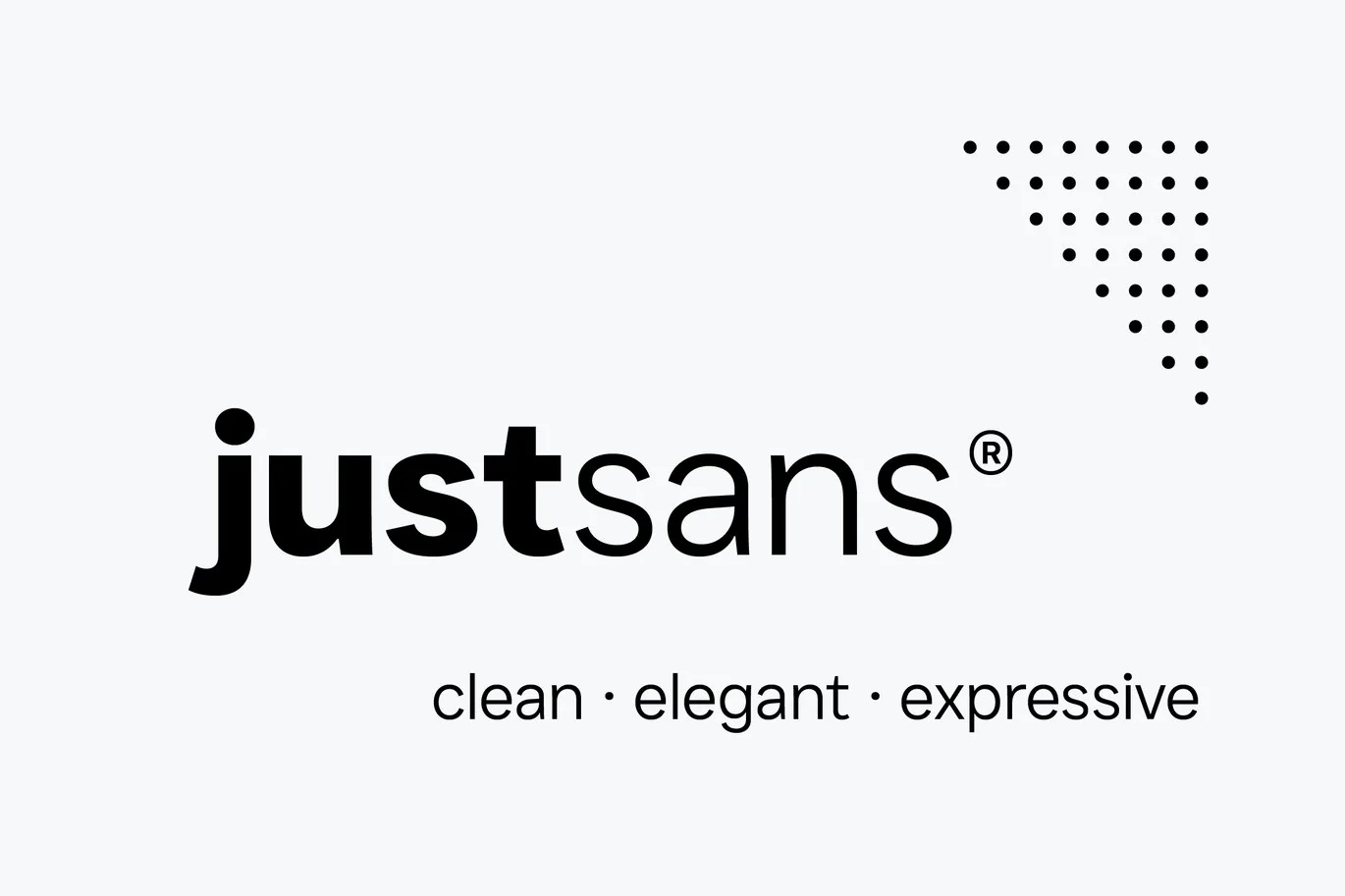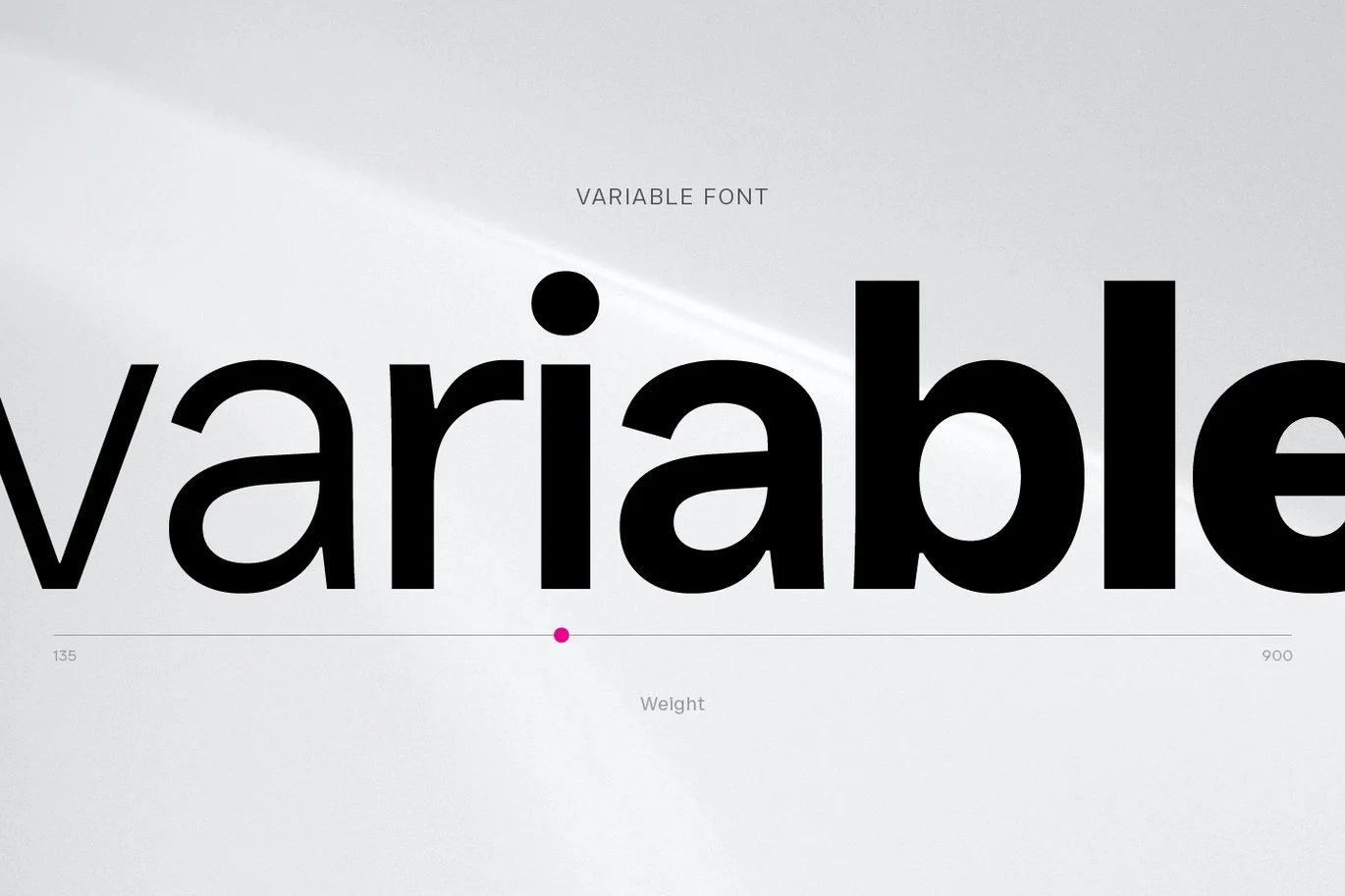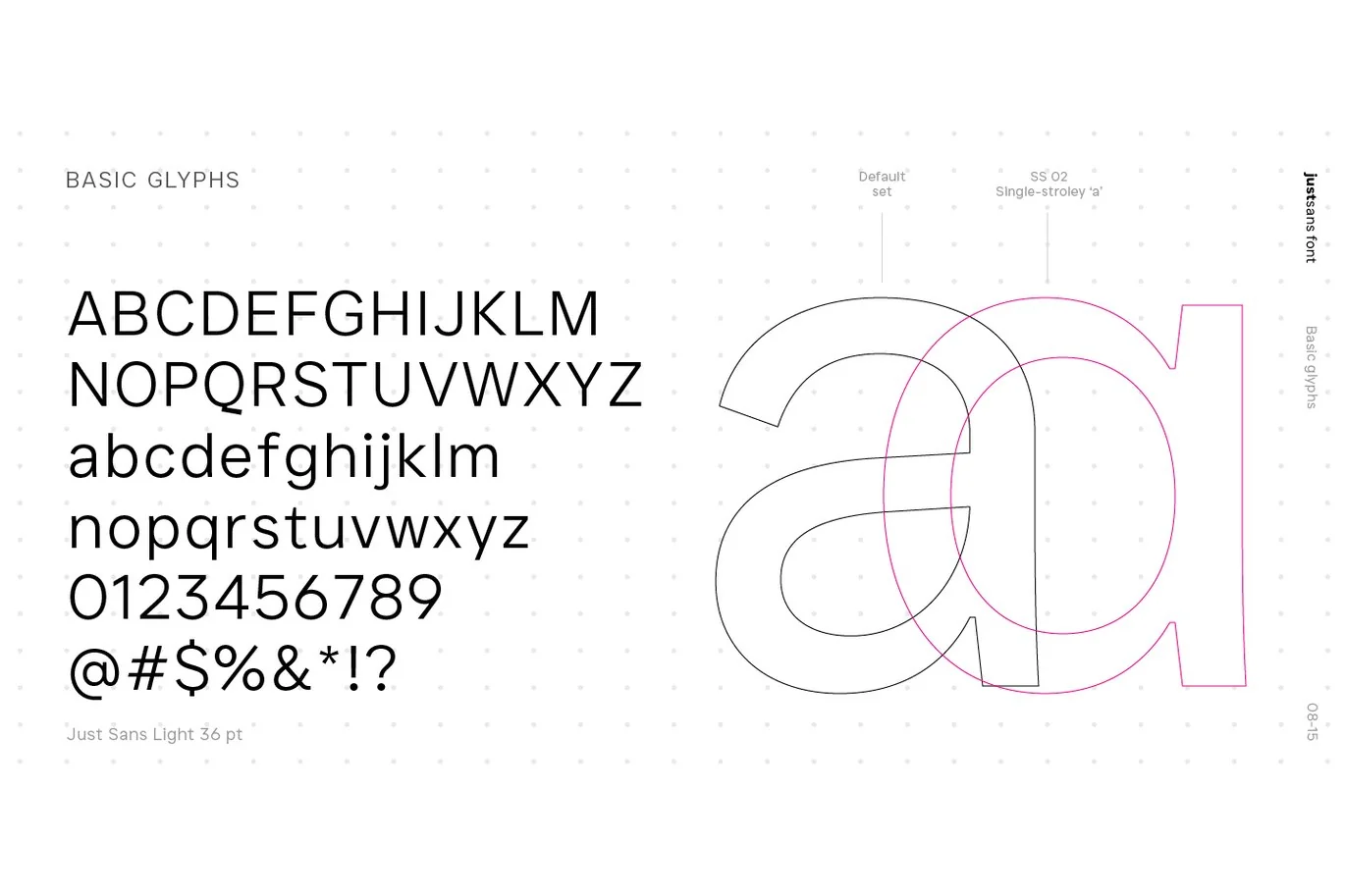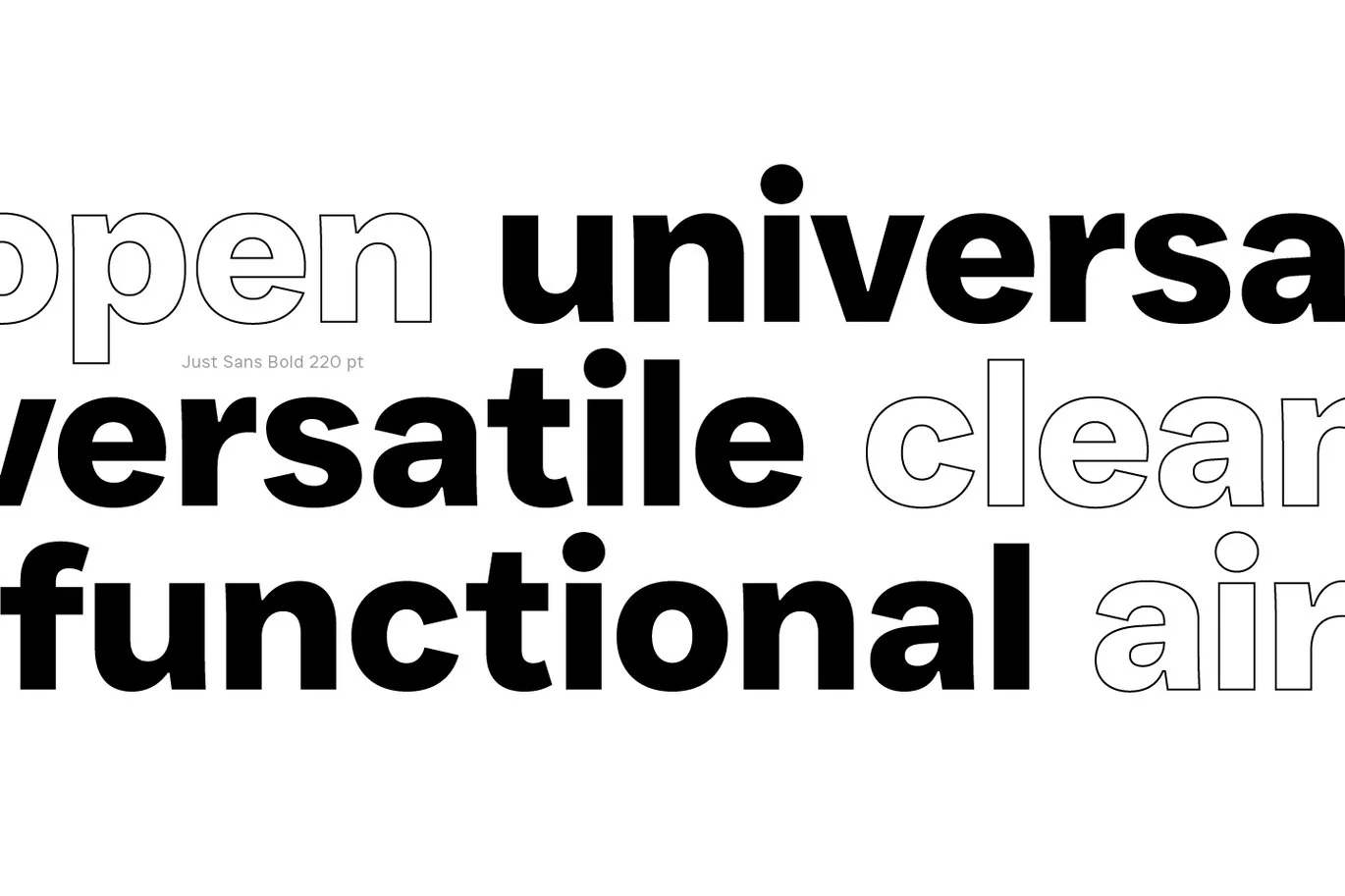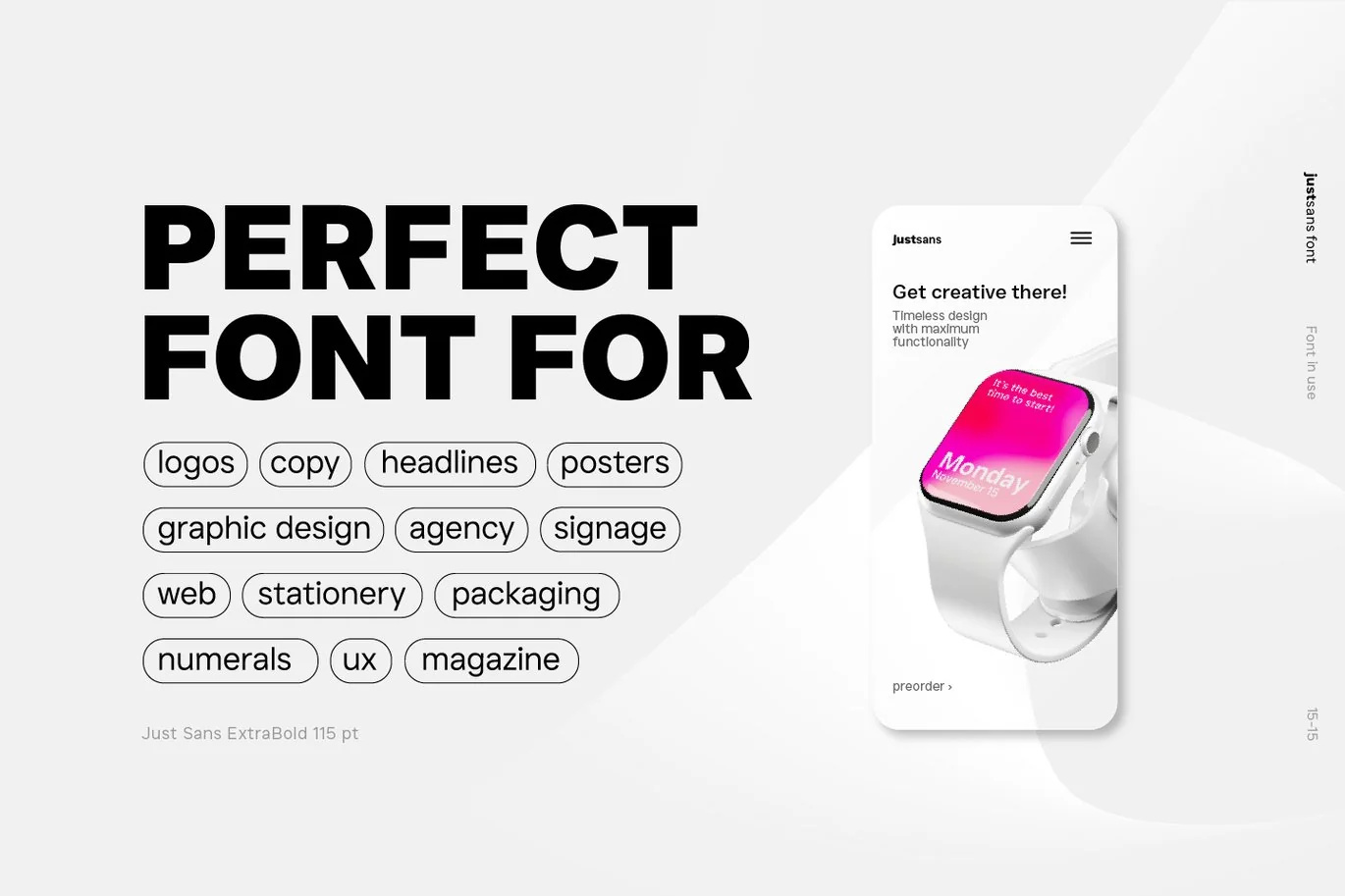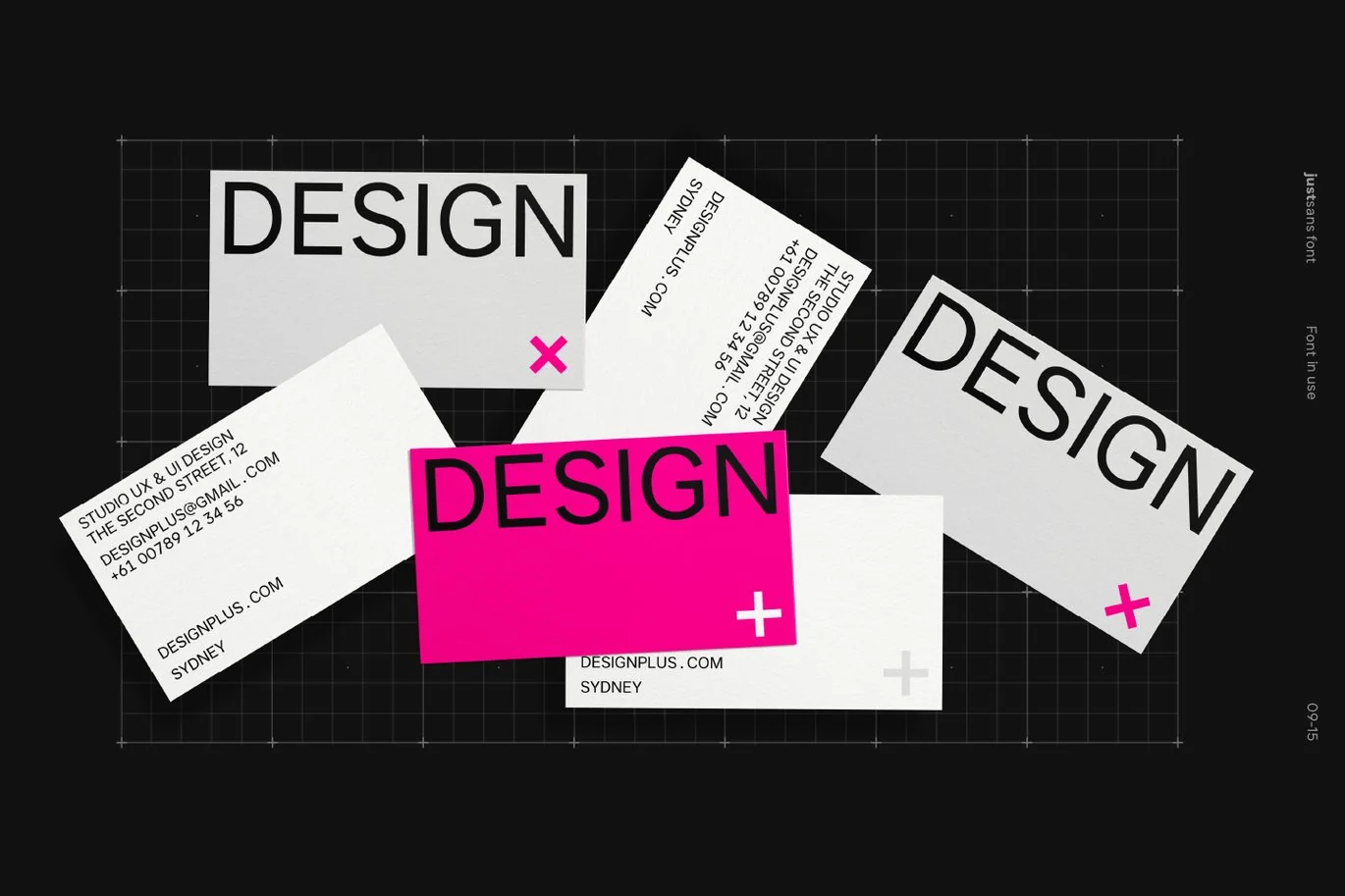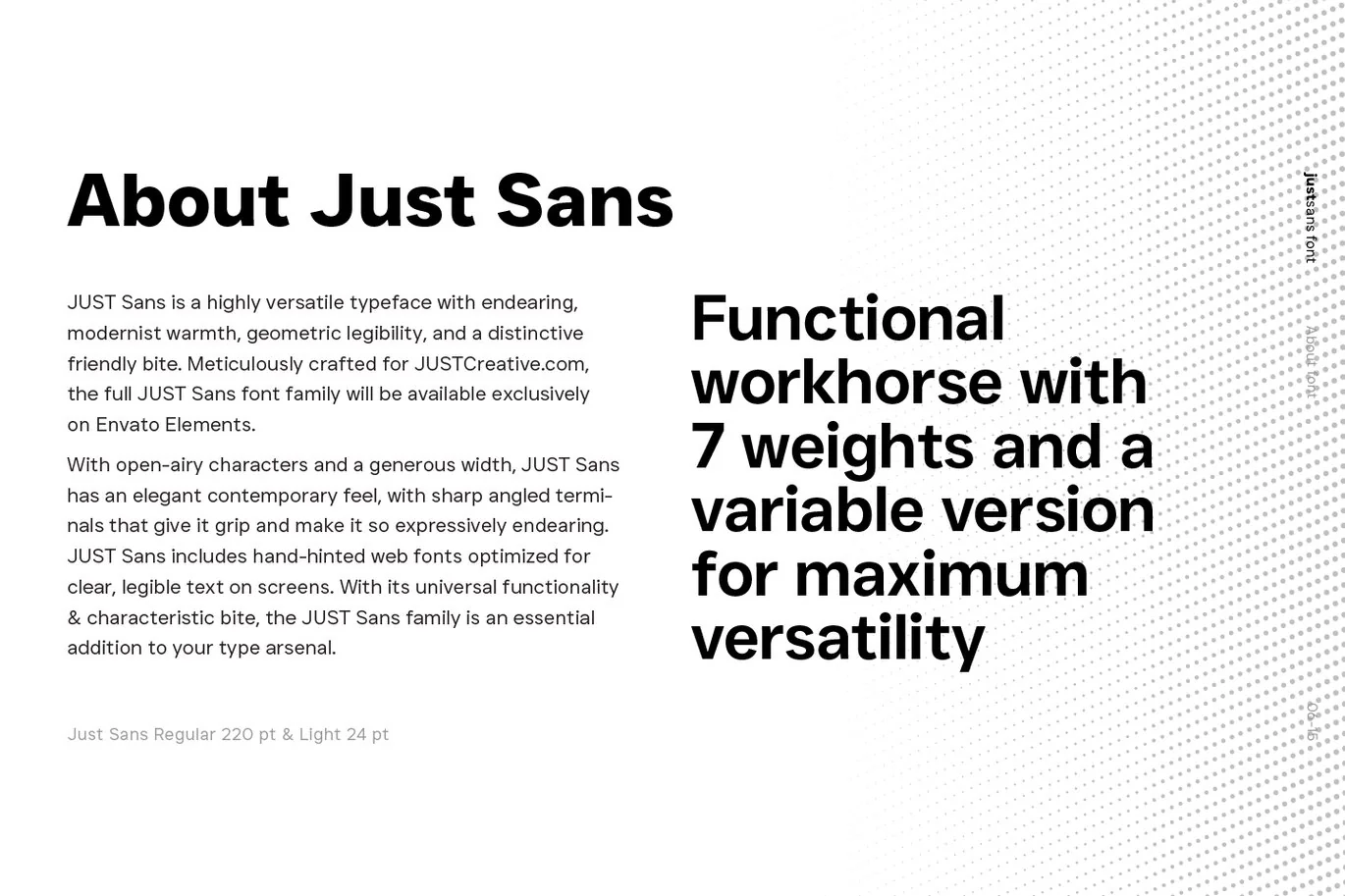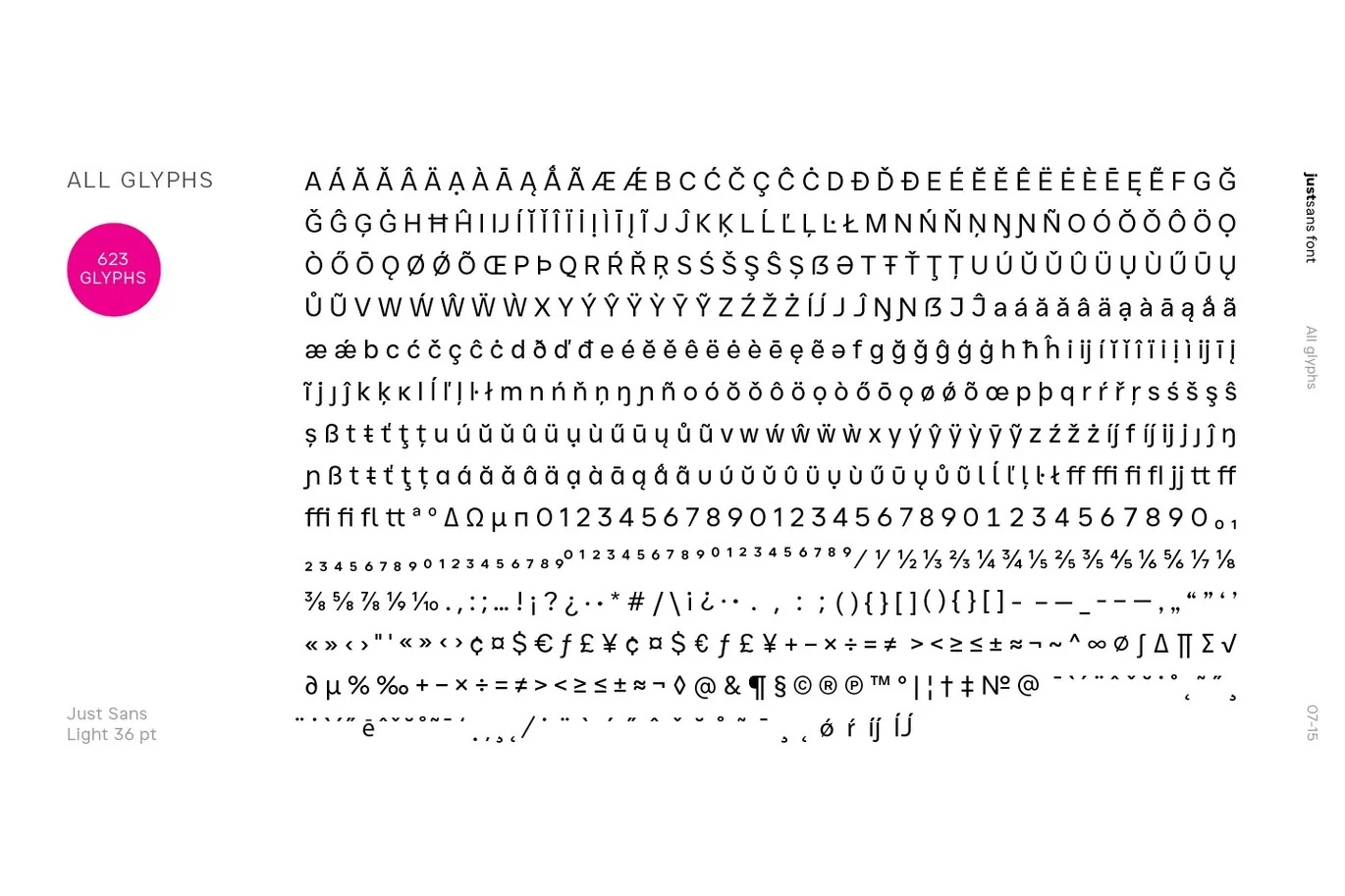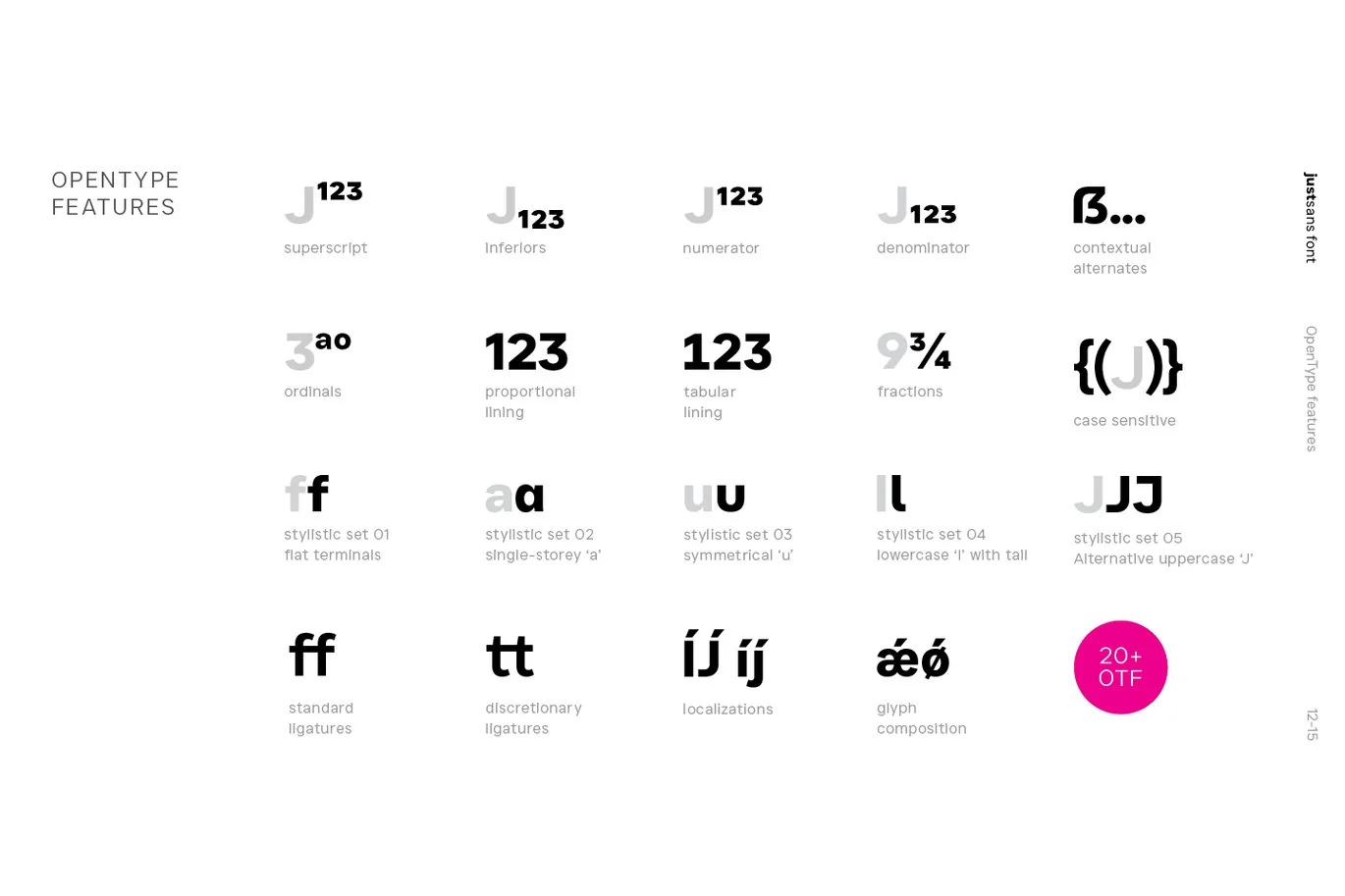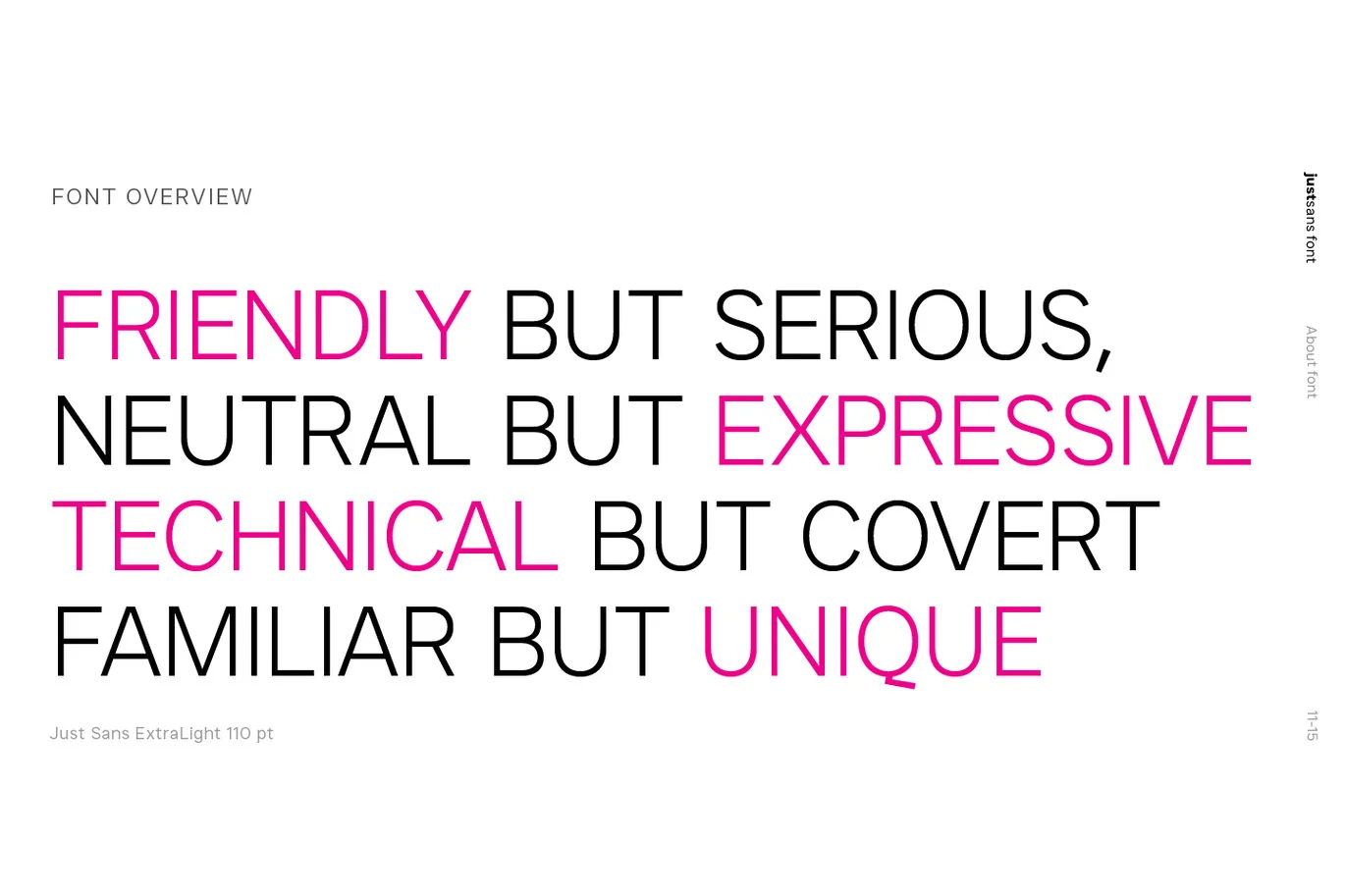
JUST Sans® Clean Modern Minimal Geometric Typeface
JUST Sans is a highly versatile typeface with endearing, modernist warmth, geometric legibility, and a distinctive friendly bite.
Designed as a professional modern geometric sans serif, JUST Sans is both serious and friendly, neutral but warmly expressive, technical but not overt, and familiar but unique enough to stand on its own.
With open-airy characters and a generous width, JUST Sans has an elegant contemporary feel, with sharp angled terminals that give it grip and make it so expressively endearing.
With a clean, simple, and minimal aesthetic, JUST Sans is a functional workhorse with 7 weights, complete Latin extended language support, precise hand-adjusted kerning, and a variable version for maximum versatility.
JUST Sans includes hand-hinted web fonts optimized for clear, legible text on screens making JUST Sans perfect for the web as well as logos, branding, headlines, paragraph text, UI, signage, packaging, posters, and industries rooted in technology, new media, architecture, fashion & design.
With its universal functionality & characteristic bite, the JUST Sans family is an essential addition to your type arsenal, even if just for those beautiful stylistic numbers.
For lovers of modern sans serif fonts who are looking for something a tad more warm, open & expressive, JUST Sans is for you.
- 7 Styles (Light, Extra Light, Regular, Medium, Semi Bold, Bold, Extra Bold)
- 623+ Characters in each font
- 20 OpenType Features
- Expanded Numerals – Default, tabular, fractions, numerators, denominators, superiors, inferiors
- Multiple Stylistic Sets (flat terminals, single-story ‘a’, ‘l’ with tail, etc.)
- Case Sensitive Punctuation
- 219+ Latin Languages supported
NEW: JUST Sans® Outline – The Perfect Companion to JUST Sans
JUST Sans Outline brings dimensional contrast to the clean modernist warmth of the original JUST Sans. Designed to pair seamlessly, this outline variant offers a striking way to add depth, emphasis, and creative flair to your typography without sacrificing clarity or simplicity.
Use it for standout headlines, layered compositions, or to bring added texture to your brand visuals.
Perfect for: logos, posters, packaging, editorial layouts, and anywhere you want your typography to demand attention.